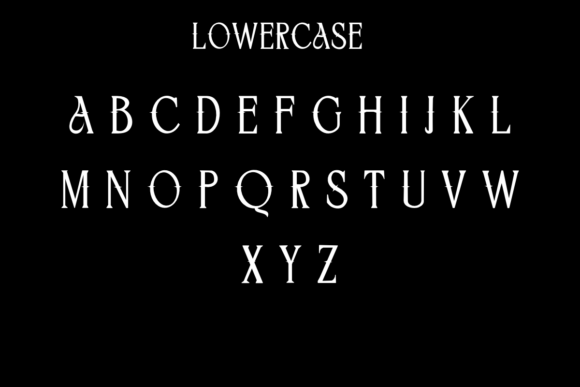
Mystic Night Font
Mystic Night is an enchanting decorative font inspired by the mysteries of the cosmos and esoteric symbolism. With celestial illustrations such as moons, stars, planets, and mystical eyes embedded into each character, this typeface offers a magical and dreamlike aesthetic. It’s perfect for witchy branding, tarot packaging, astrology blogs, crystal shops, or anything that needs a mystical twist.
This font works beautifully in display settings like posters, social media graphics, merchandise, and book covers. If your project calls for a font that feels ethereal and otherworldly, Mystic Night will deliver a powerful, spellbinding presence.